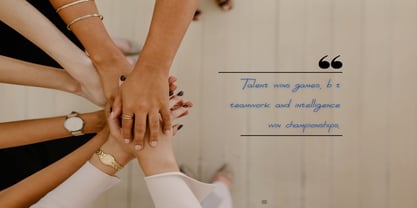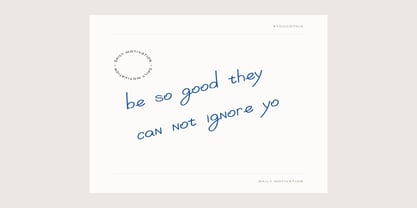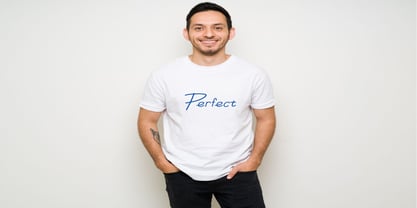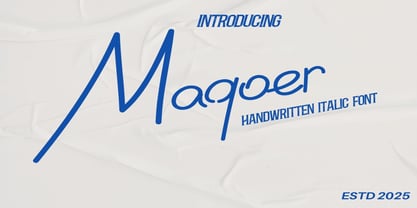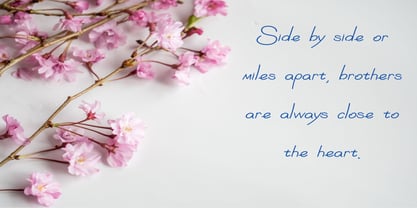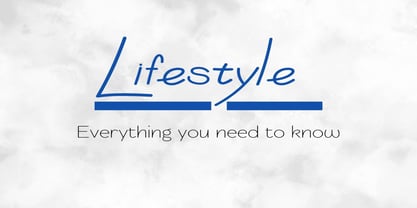
Maquar
by Dream Font
The Maquar Font Family was designed by Alan Withers and published by Dream Font. Maquar contains 1 styles.
Maqoer is a beautiful handwriiten signature font. Made for any professional project branding. Every letter has a unique and beautiful touch. Made from our talented designer. Use Breathing for various designs, such as posters, banners, logos, book covers, headings, printed products, merchandise, social media, and more. Find out more ways to use this font by taking a look at the font preview.